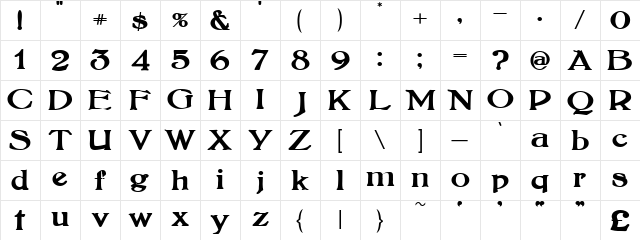
BoltonBold Regular Free Font
BoltonBold Regular
Design Context for BoltonBold
BoltonBold is a composed and adaptable typeface that performs quietly and consistently across a wide range of design contexts. Its bold stroke weight gives it real presence on the page.